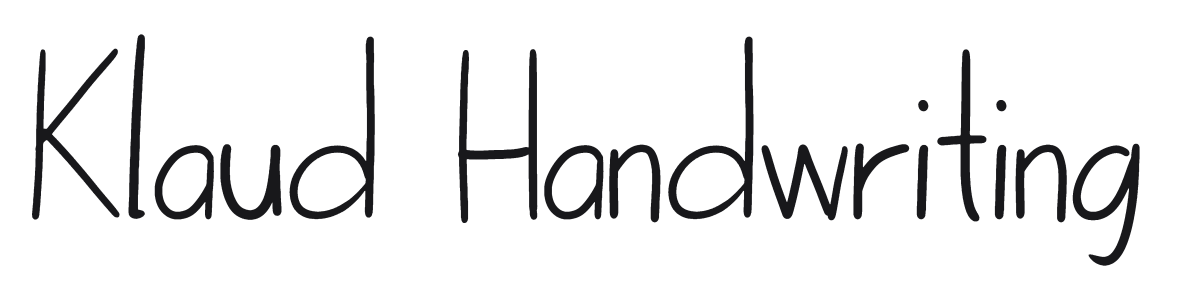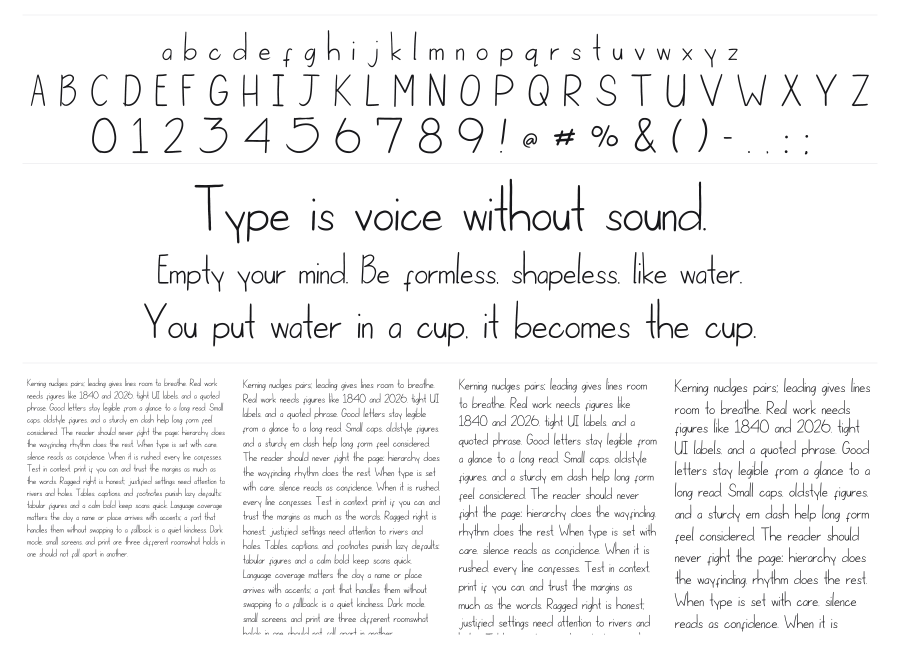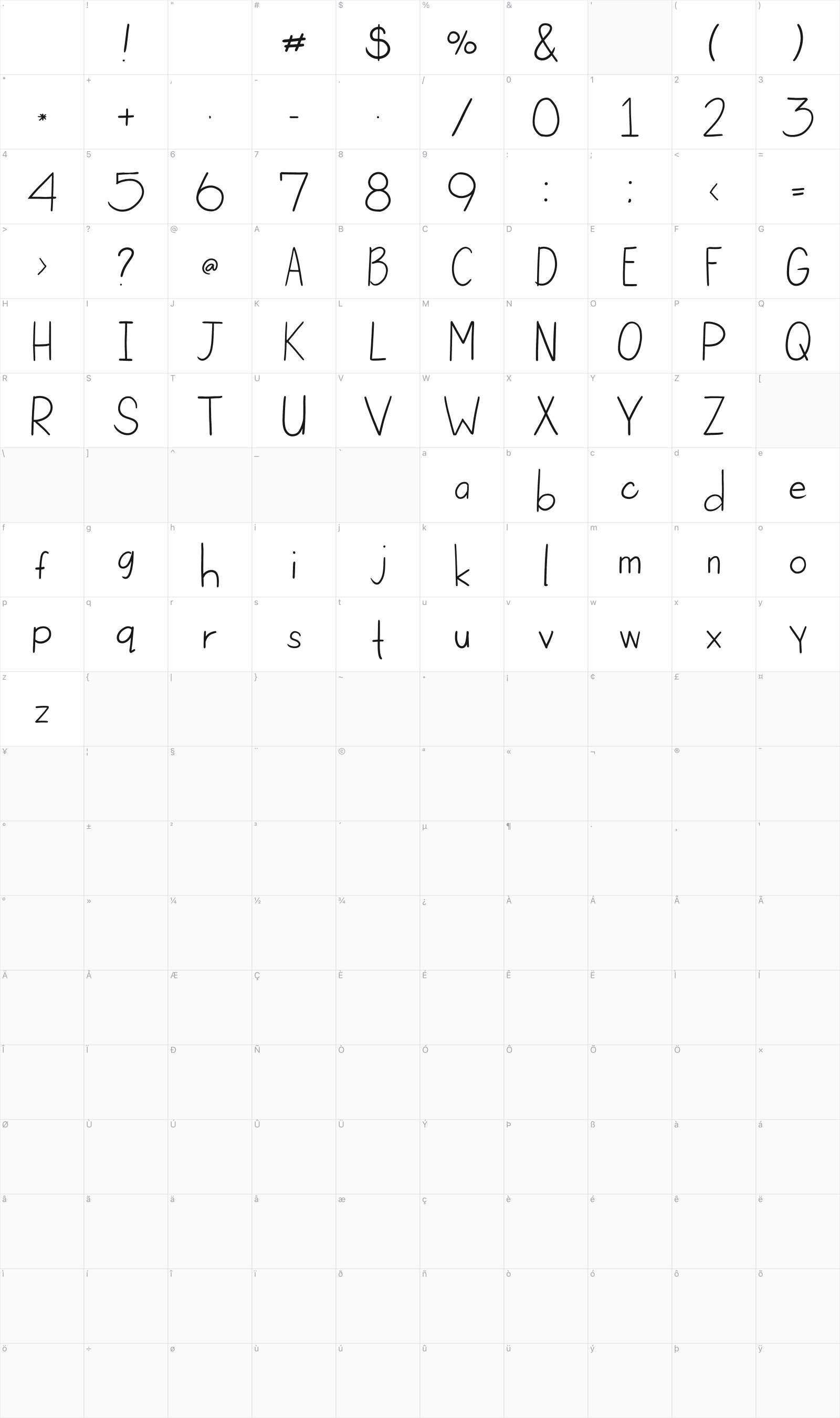
Klaud Handwriting
Klaud Handwriting is a casual, pen-drawn sans-serif with a light, natural feel and pleasantly wobbly strokes. Each character carries the gentle irregularity of real handwriting without feeling forced or over-designed. It reads warm and approachable at display sizes, suited for projects that need a human, personal touch.